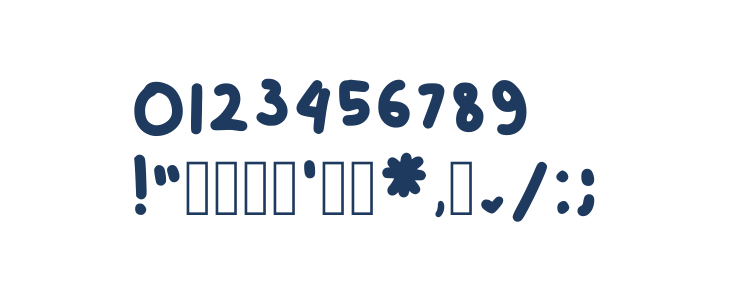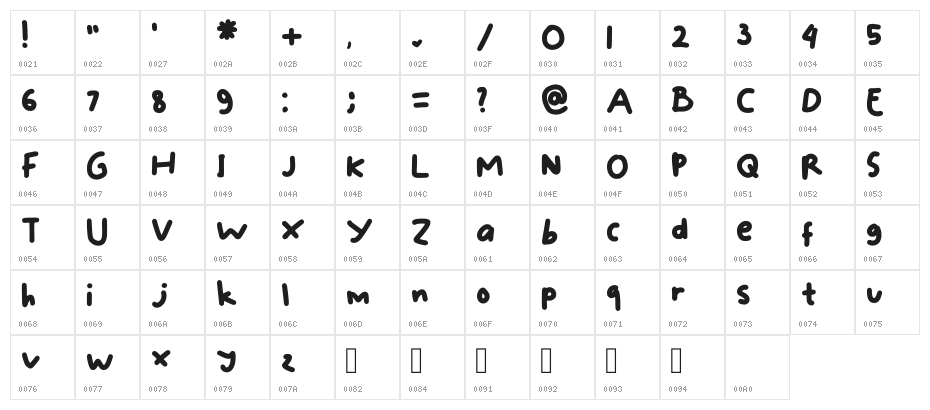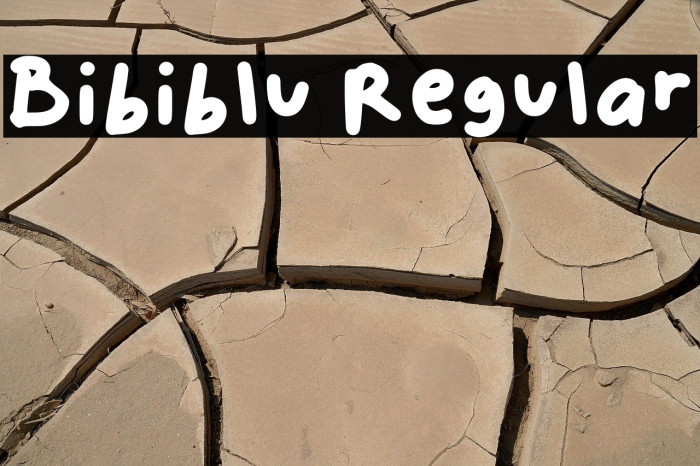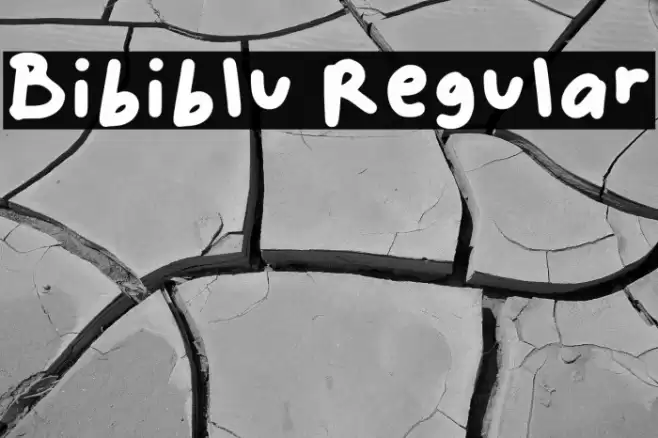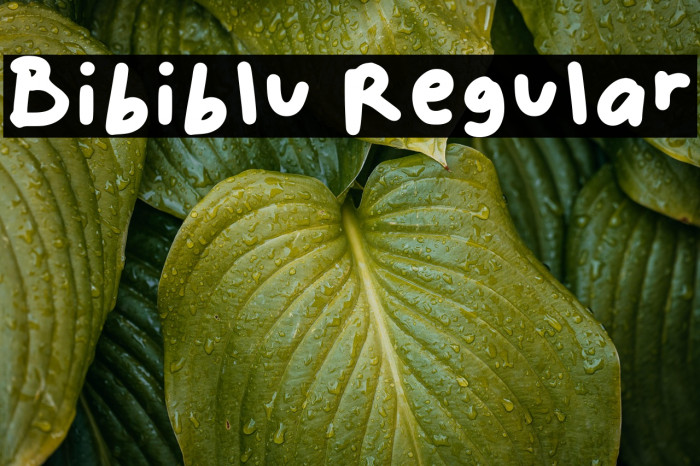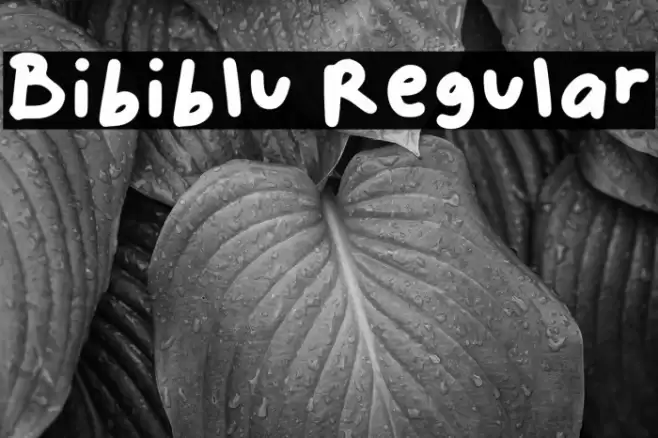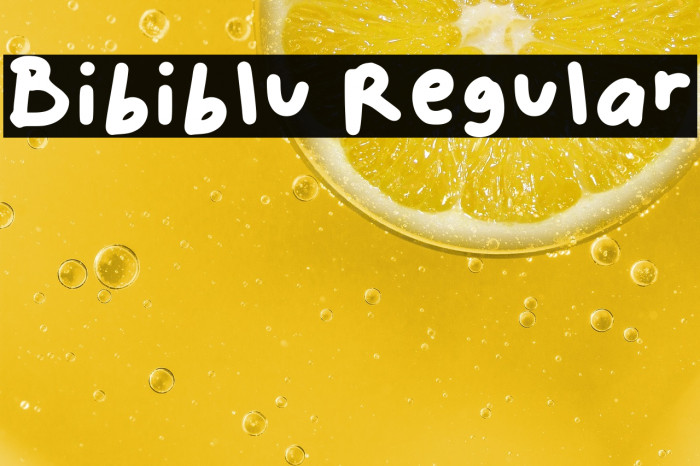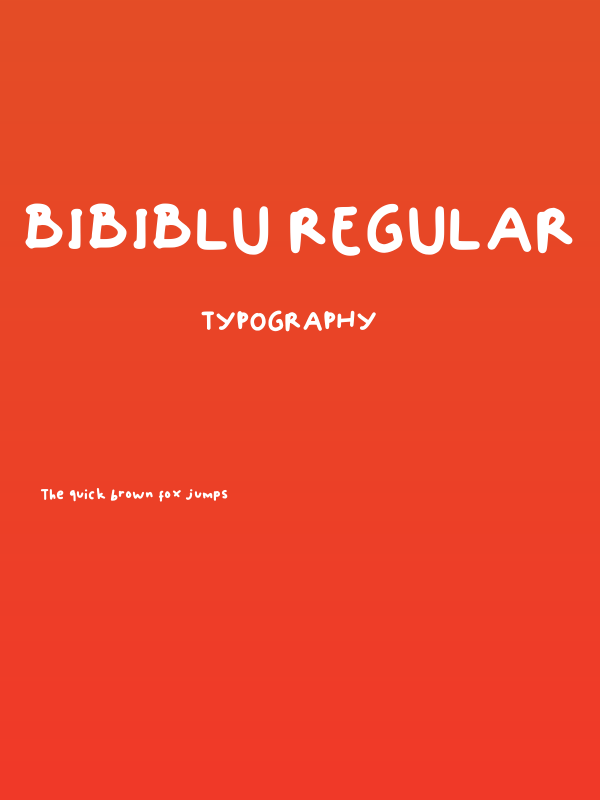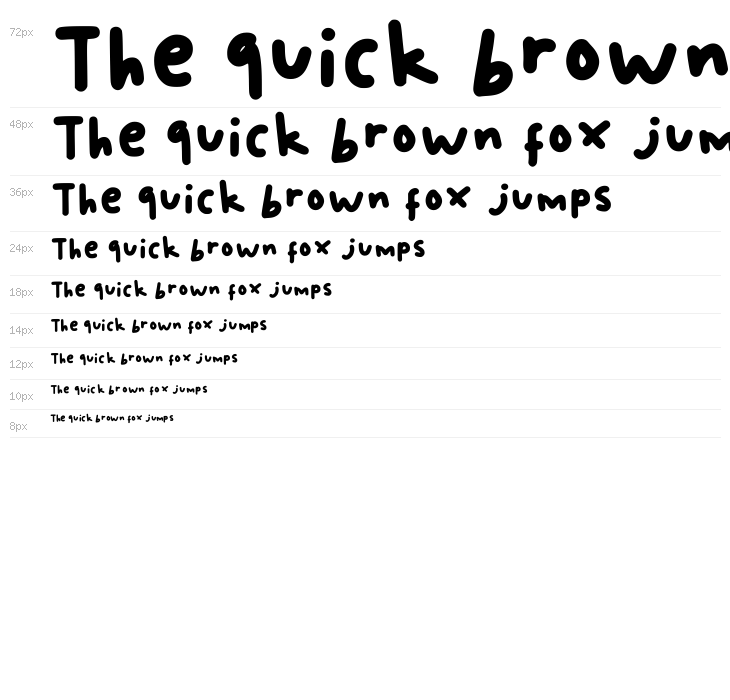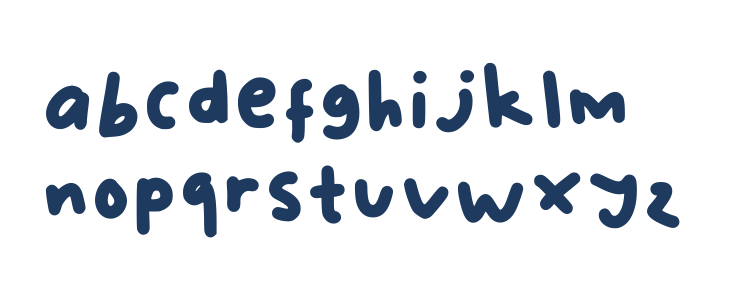
Bibiblu Regular Font
Bibiblu Regular Description
This playful and whimsical font features bold, rounded characters with a hand-drawn appearance. The letters exhibit a consistent thickness throughout, contributing to a friendly and approachable style. The uppercase and lowercase letters maintain a uniformity that ensures readability, while the numbers and special characters complement the overall aesthetic. The font's informal and casual nature makes it ideal for projects that require a touch of fun and creativity. Its distinctive style is perfect for capturing attention and conveying a sense of warmth and personality.